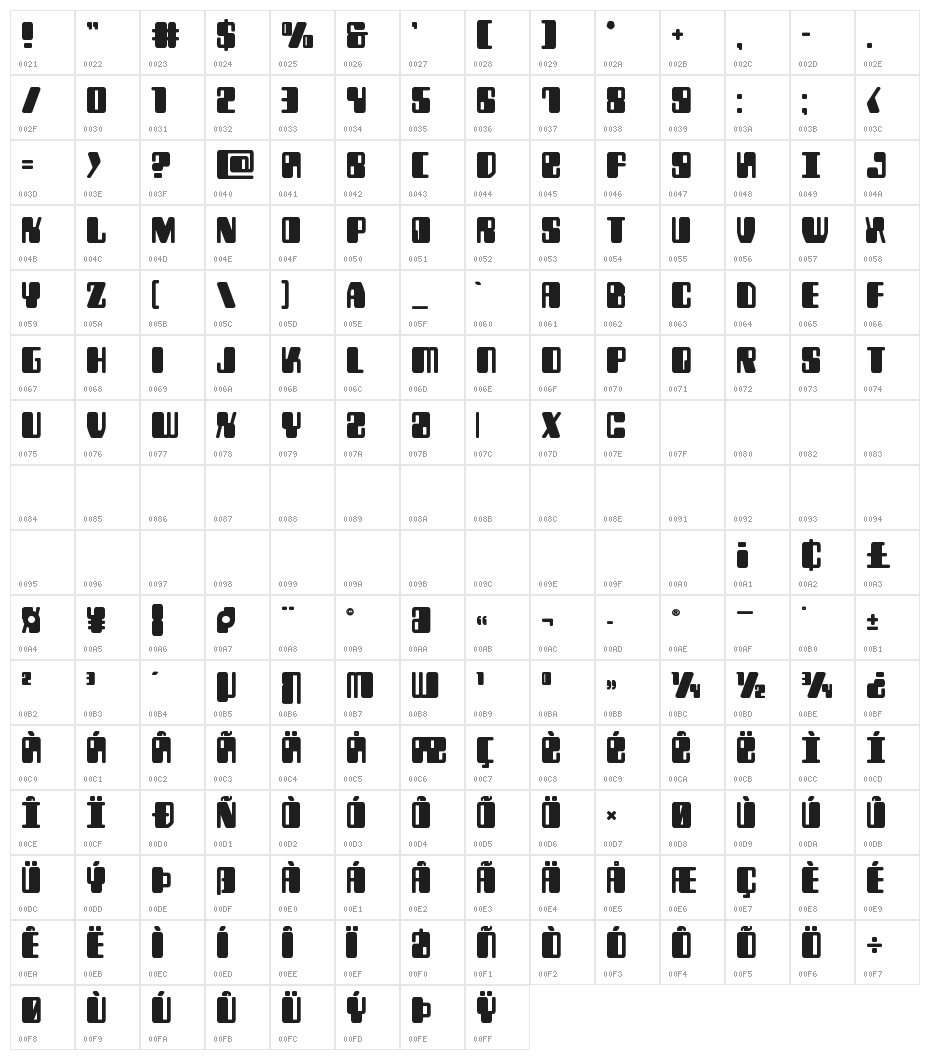
Zyborgs Bold Font
Zyborgs Bold Description
This bold, futuristic font features a strong, geometric design with a distinctly modern aesthetic. The characters are blocky and robust, with a uniform thickness that gives them a powerful presence. The angular shapes and sharp edges contribute to a tech-inspired look, making it ideal for projects that require a contemporary and assertive style. The font's uniformity and boldness ensure high readability, even at smaller sizes. Its unique design elements make it stand out, adding a dynamic and energetic feel to any text.
| Proposed Projects | Ideal for technology branding, video game titles, sci-fi movie posters, and modern digital interfaces. |